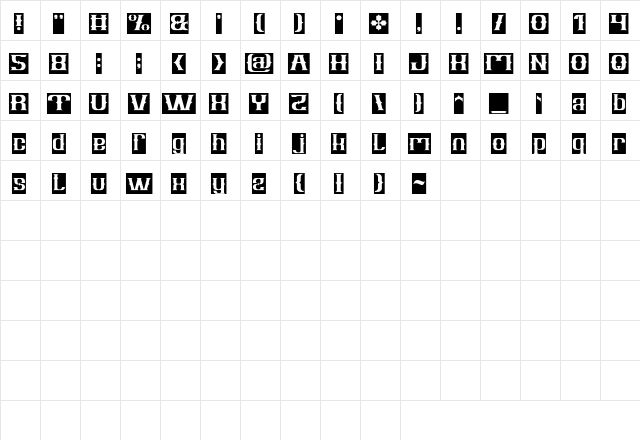
Vintage Postcard-Inverse Regular
Design Context for Vintage Postcard-Inverse Typeface
Vintage Postcard-Inverse has the warm character of retro typography — evoking diners, record sleeves, and the golden age of print advertising.
Font Pairing: Combine Vintage Postcard-Inverse with a simple slab or neutral sans — period-accurate companions reinforce the vintage feel without competing for attention.
Pro Tip: Use Vintage Postcard-Inverse for headlines and pull quotes rather than body copy — its personality is best appreciated in short, focused bursts.